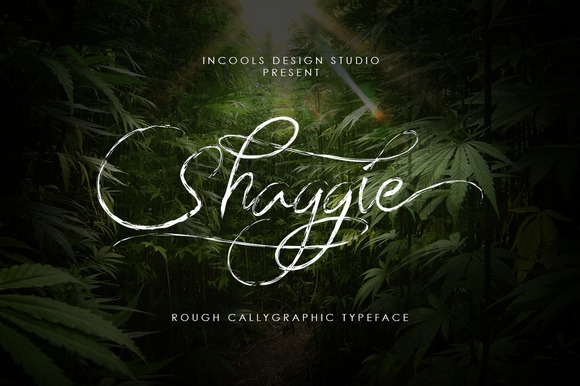
Immerse yourself in the realm of aesthetics with Shaggie Font, a calligraphic masterpiece that dances across your designs with a raw and untamed charm. Let your creativity run wild as you witness the harmonious fusion of passion and precision in every stroke of this script font.
Conceived by the esteemed Incools Design Studio, renowned for their artistry in penmanship, Shaggie Font embodies the essence of elegance and authenticity. Each letterform is a testament to the dedication and attention to detail that went into its creation, resulting in a symphony of visual delight.
Unleash your artistry and captivate your audience with the versatility of Shaggie Font. Its sweeping curves and dynamic strokes bring a touch of magic to any project, be it branding, packaging, social media, or personal expression. Transform your words into works of art and make a lasting impression that speaks volumes.
Indulge in the allure of Shaggie Font and let your designs dance with a captivating rhythm. Its rough and dancing nature adds a touch of playfulness, while its unwavering elegance ensures a sophisticated and polished aesthetic.
Don't settle for the ordinary; embrace the extraordinary with Shaggie Font. Embrace the power to evoke emotions and tell stories with every design. Elevate your creations to new heights and leave an indelible mark on the hearts of your audience.